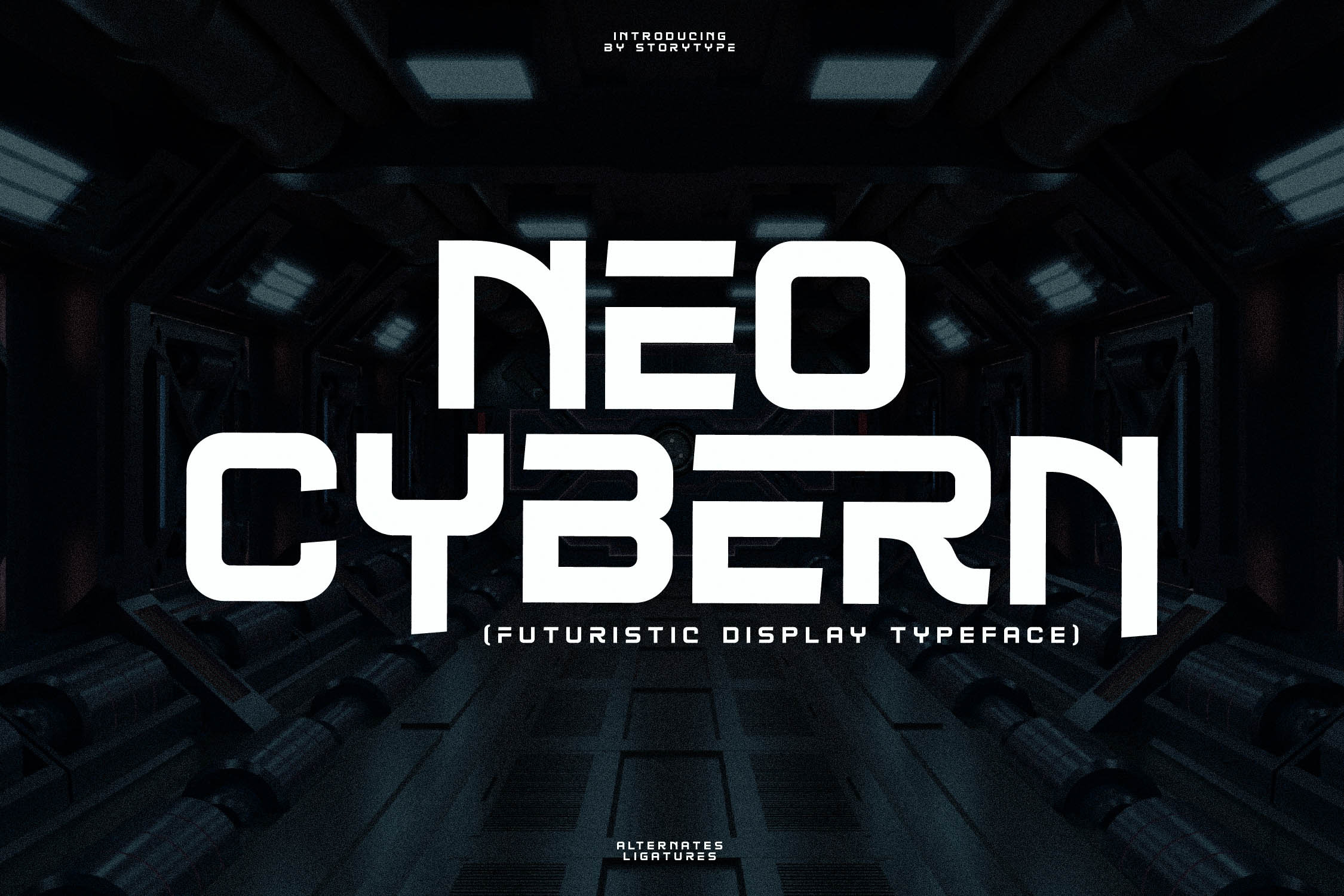
Neo Cybern Futuristic Display Font
Proudly present Neo Cybern Typeface , created by Storytype, A serif modern and classic typeface that has own unique style & modern look. This typeface is perfect for an elegant & luxury logo, book or movie title design, fashion brand, magazine, clothes, lettering, quotes, and so much more.